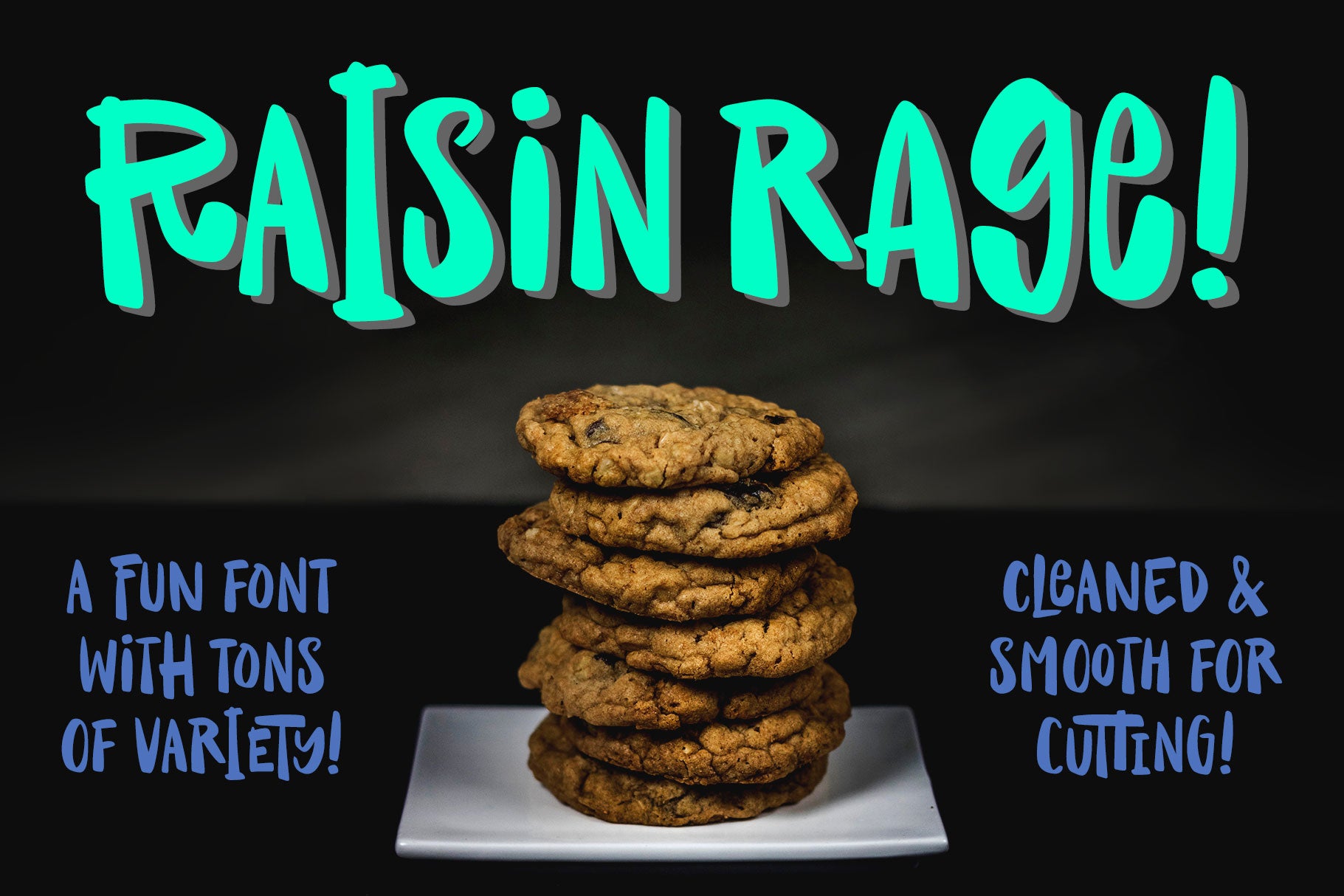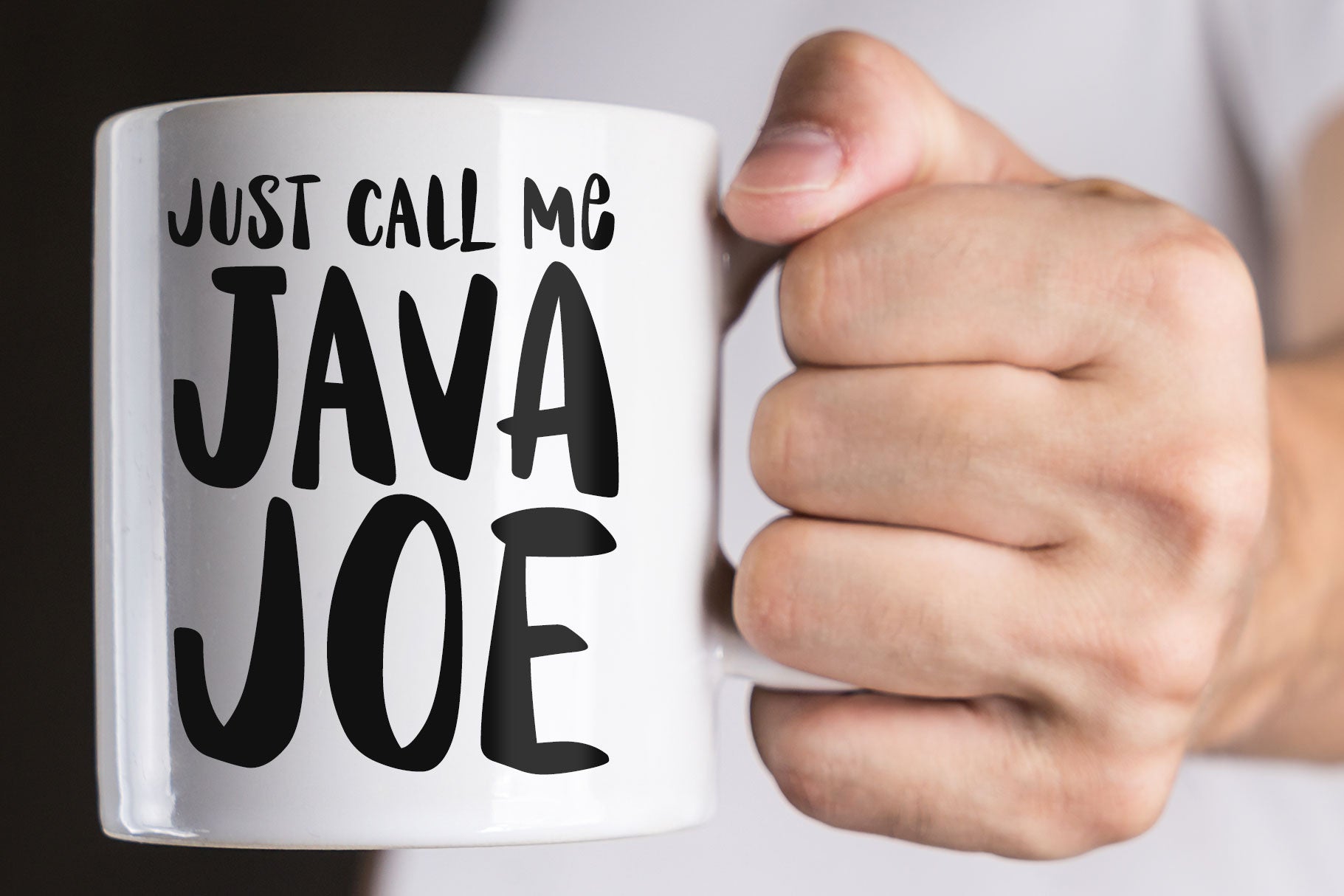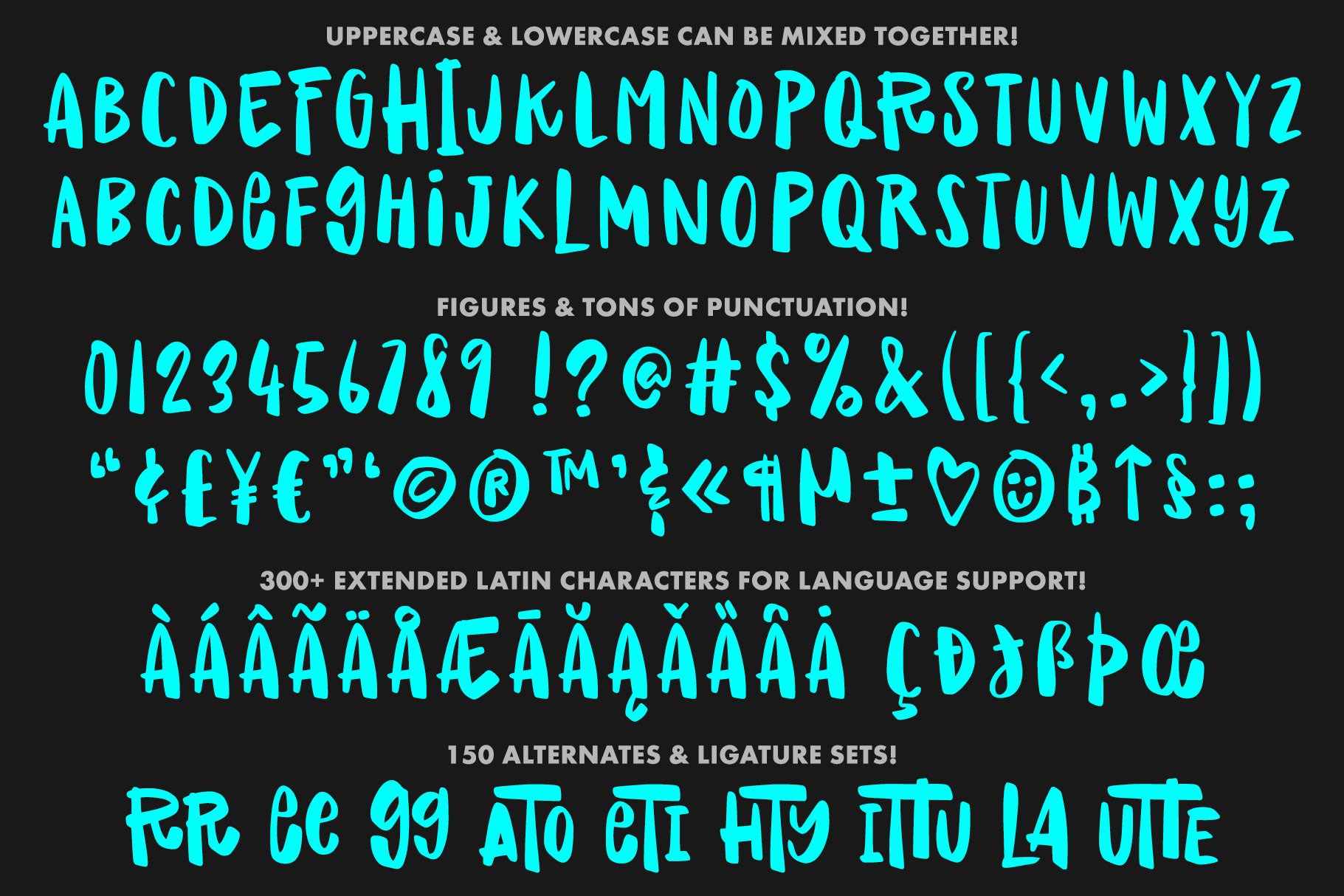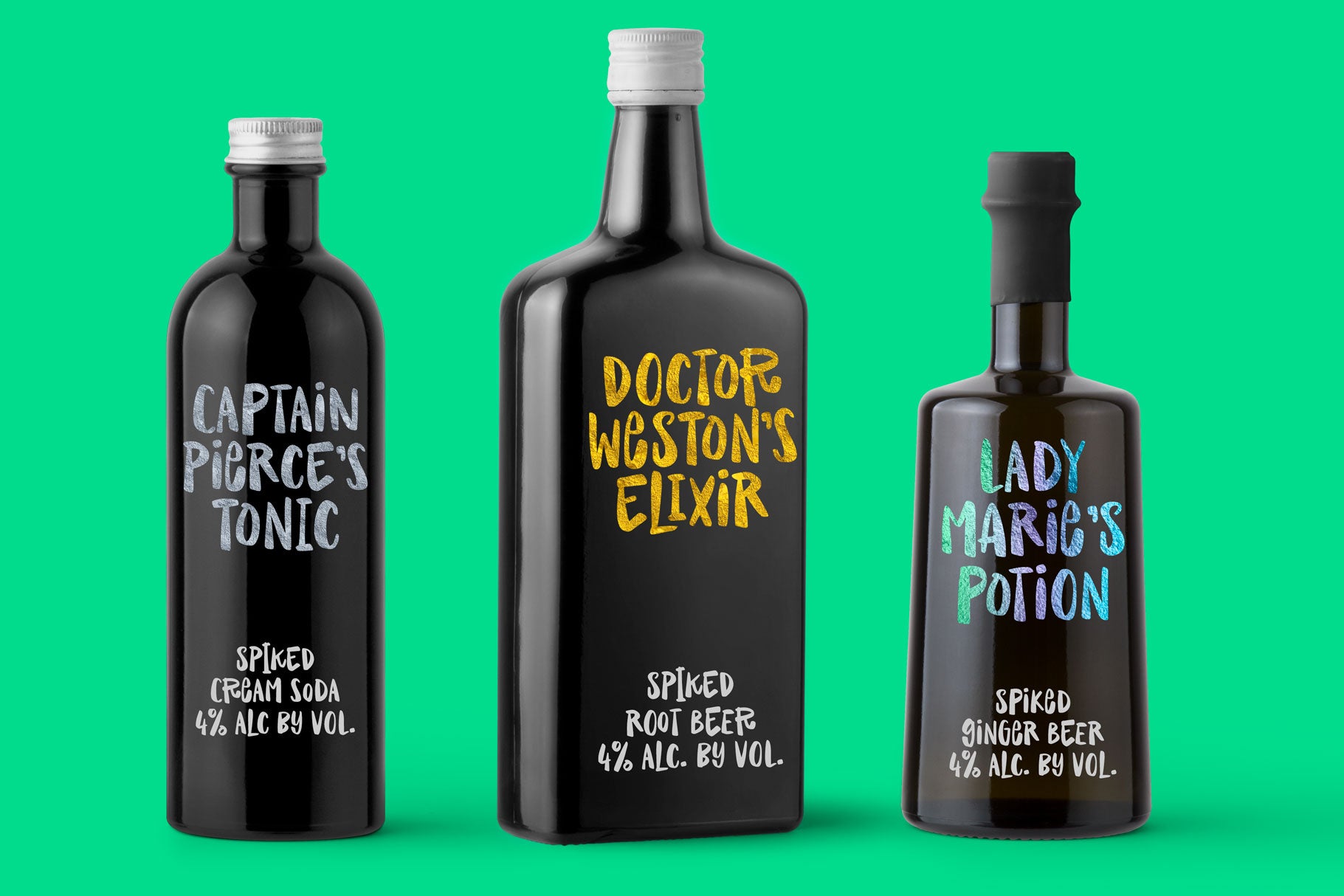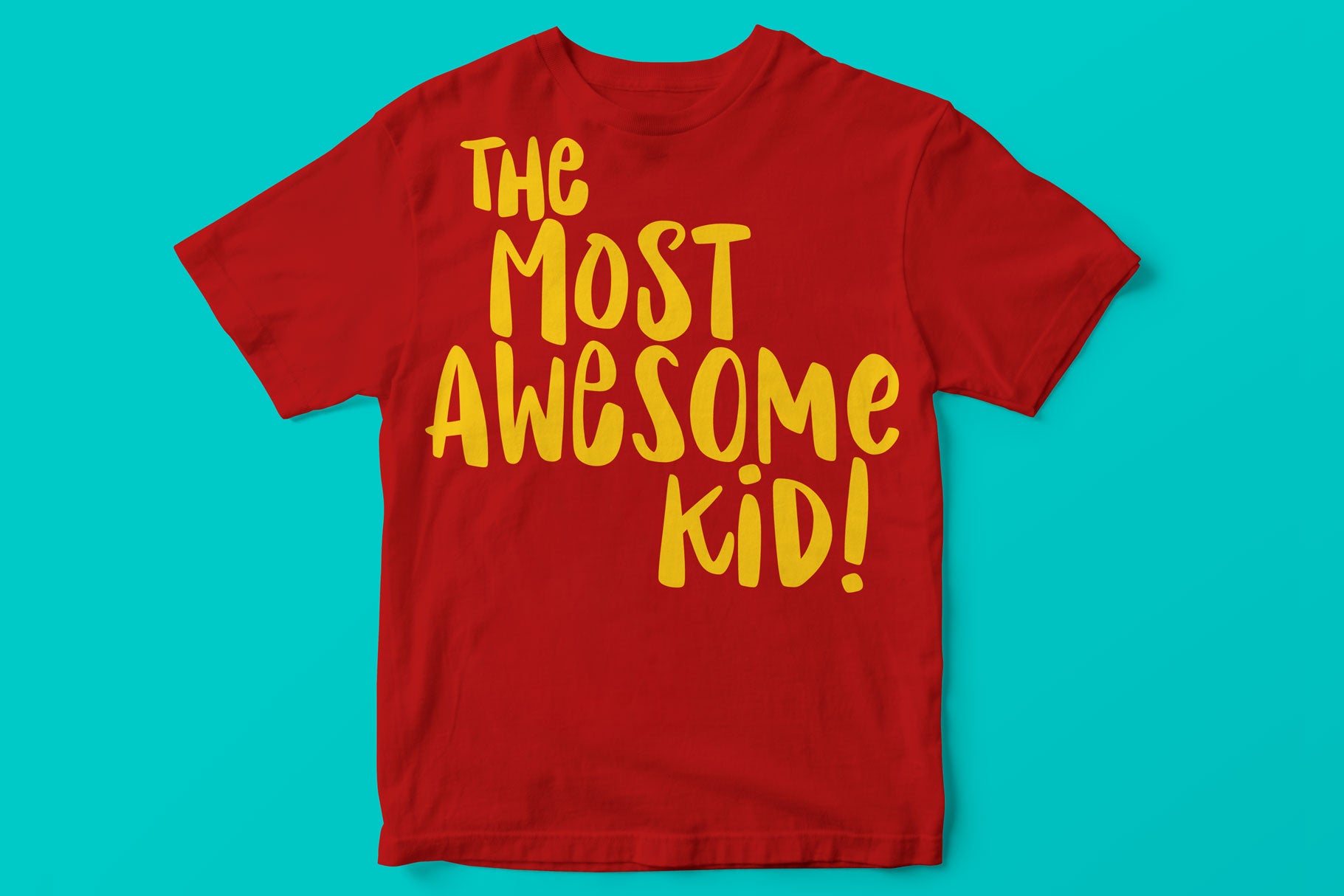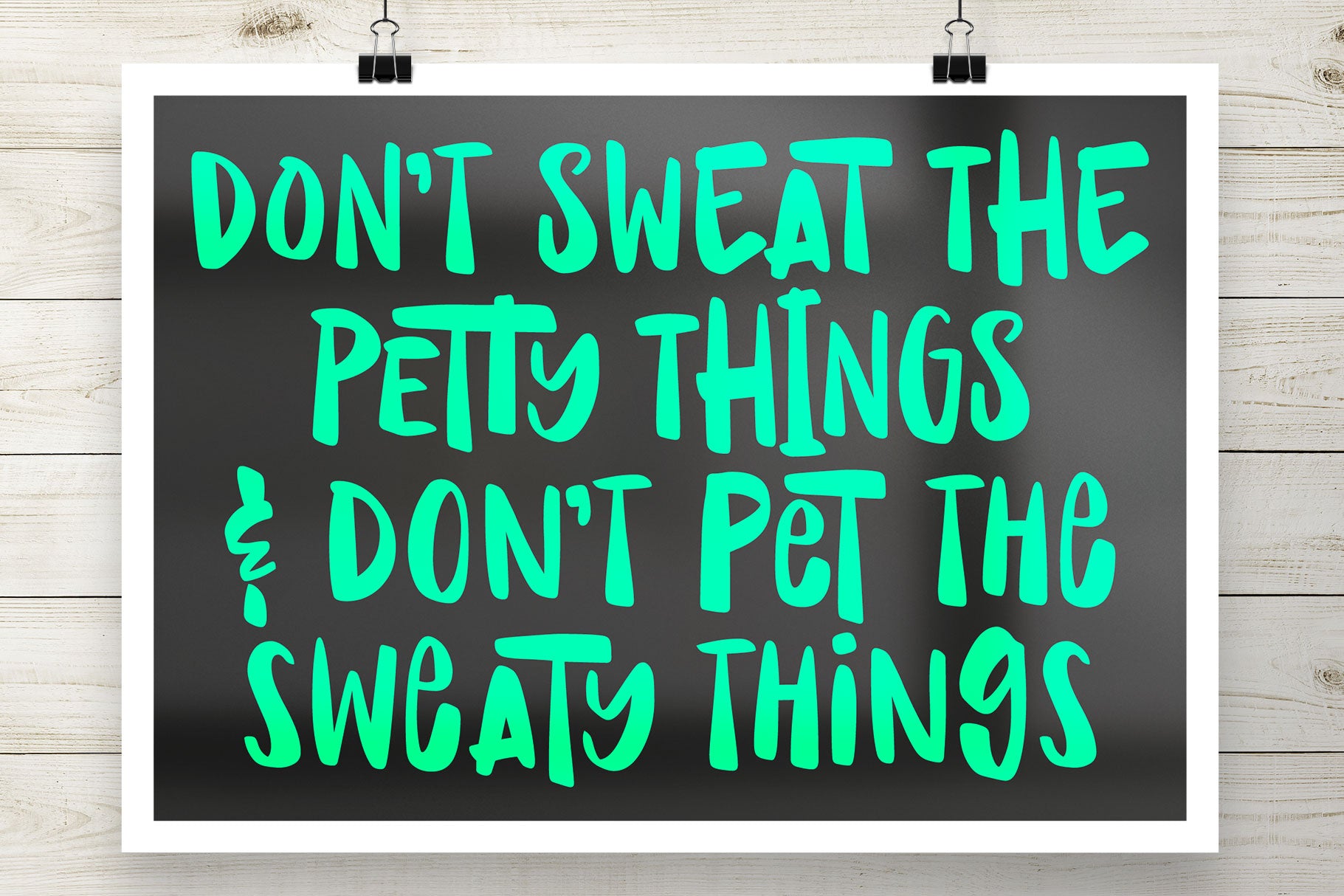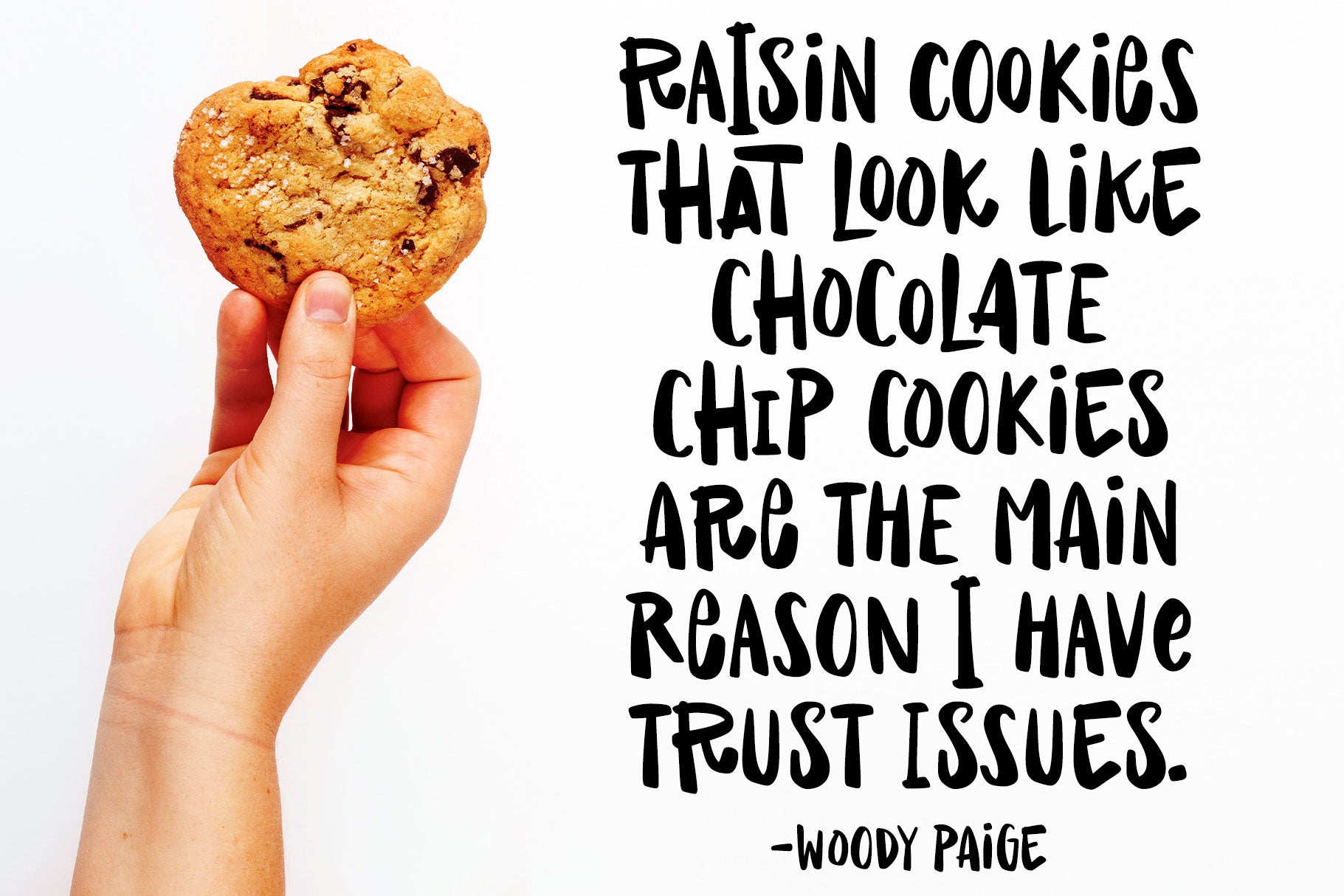
It's a weird name, but it's also a weird font! This is Raisin Rage, a font that expresses that feeling of when you bite into a cookie expecting it to be full of chocolate chips, but it's full of squishy, rubbery raisins instead. (Don't write to me, raisin lovers - you'll never change my mind.)
Raisin Rage has some fun casual elements like varying stroke widths, plus some bouncing heights which make this fun to use for branding, packaging, logos, and more.
Both the uppercase and lowercase sets of Raisin Rage are caps height, so they can be mixed and matched. All letters are smoothed and cleaned for easy cutting, engraving, and printing. The font contains over 200 extended Latin characters for language support, as well as over 150 alternates, multi-letter ligatures, and extras for variety!